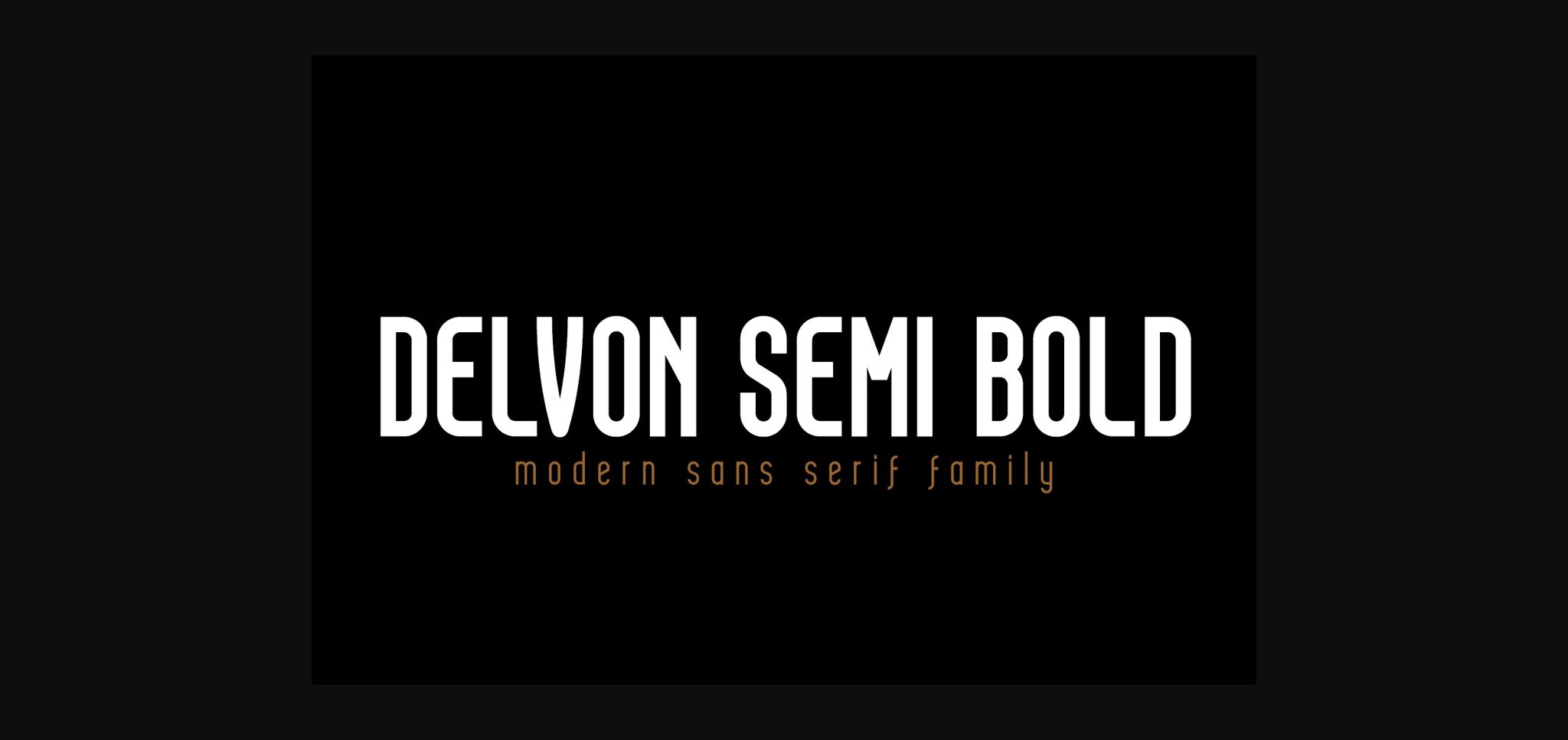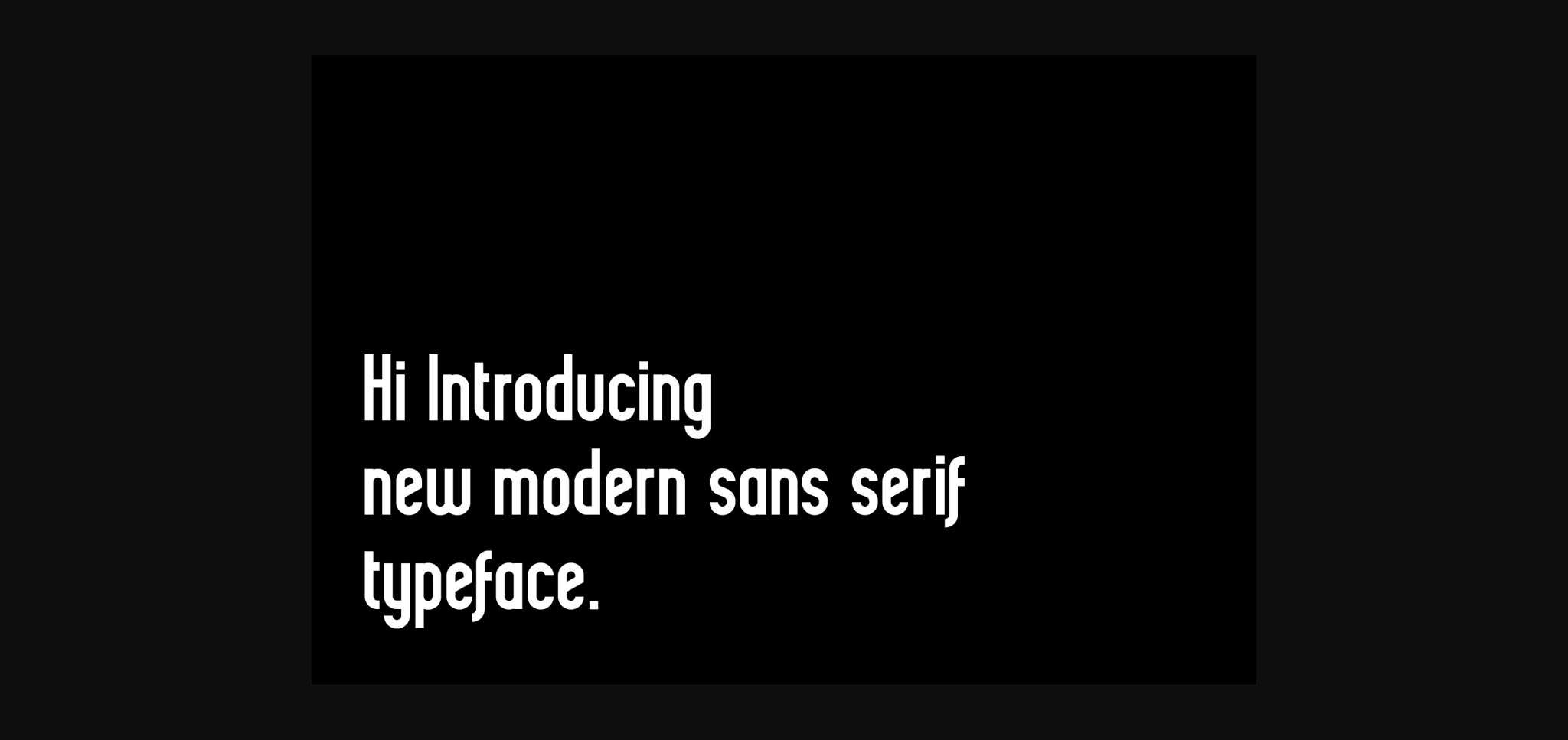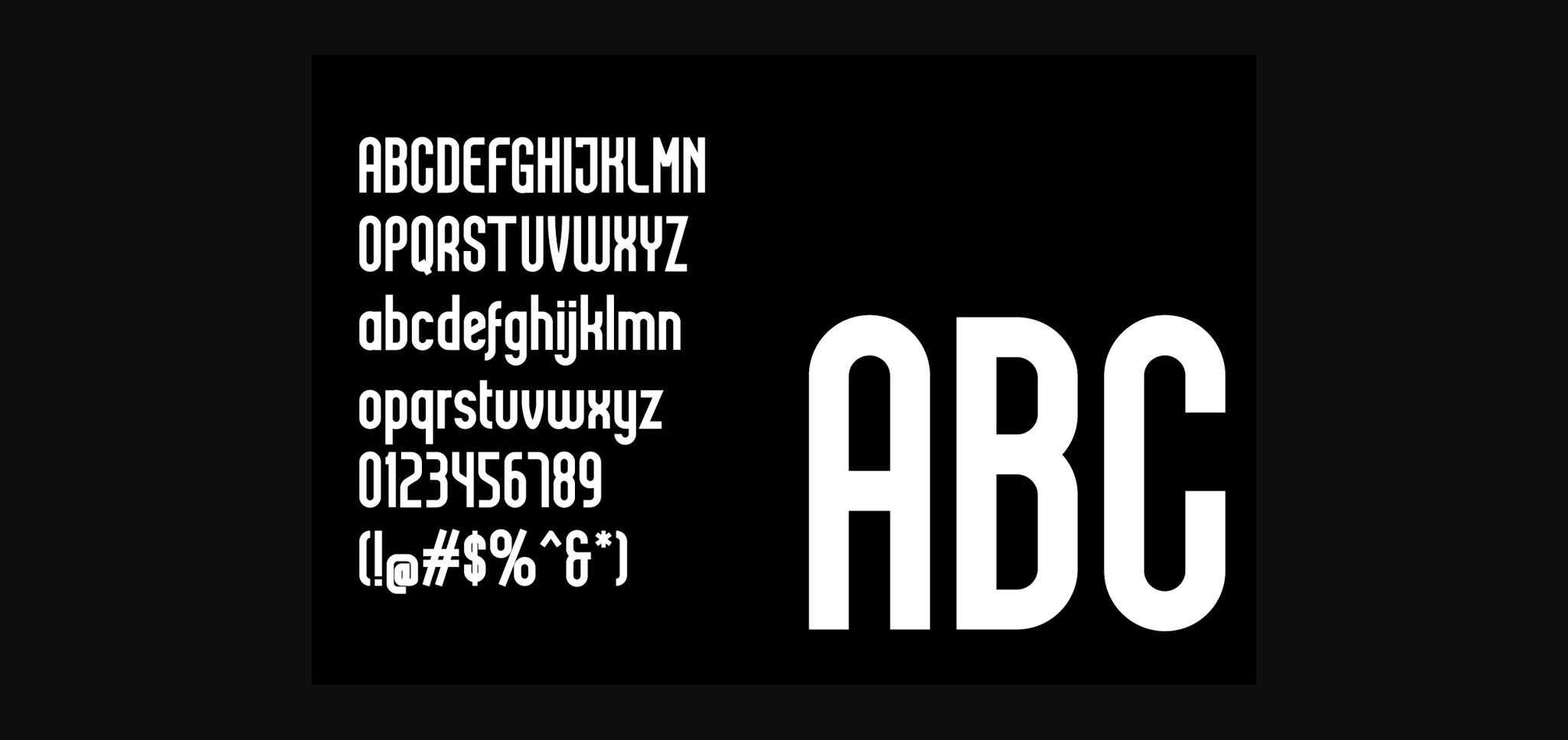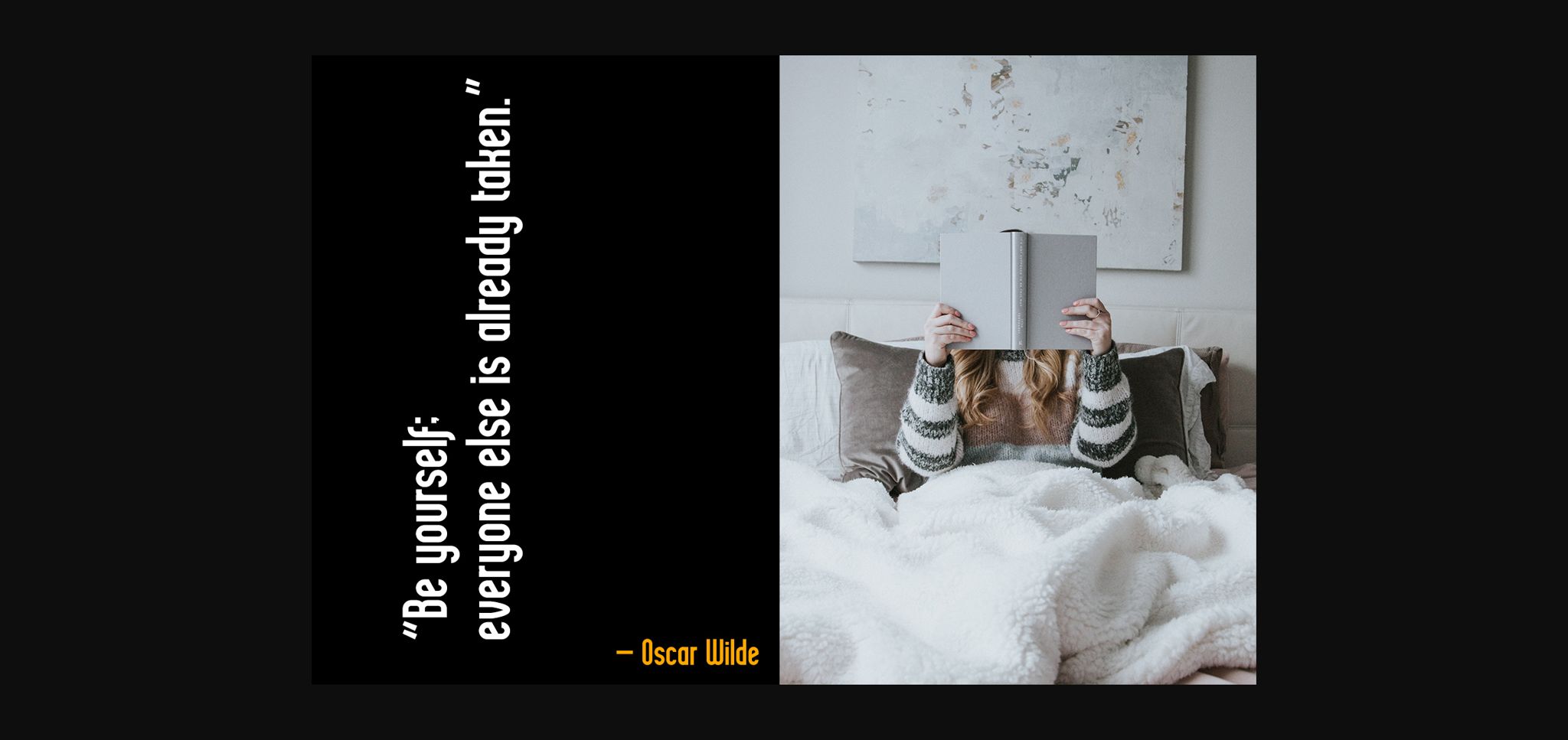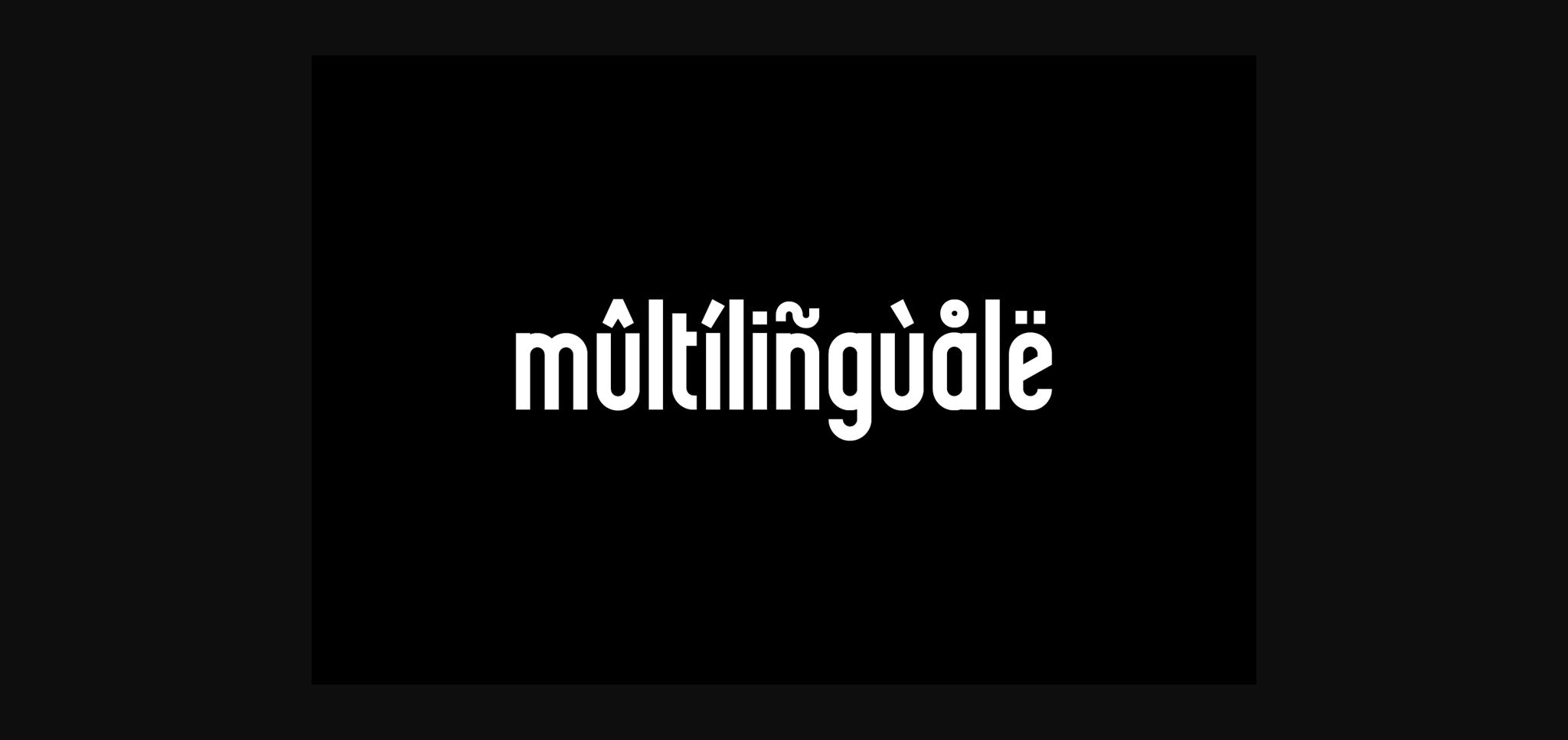
HomeSans Serif FontsDelvon Semi Bold Font Sans Serif Fonts Delvon Semi Bold Font FacebookXPinterestWhatsApp 1 of 7 ... Delvon Semi Bold Font Poster 2... Delvon Semi Bold Font Poster 3... Delvon Semi Bold Font Poster 4... Delvon Semi Bold Font Poster 5... Delvon Semi Bold Font Poster 6... Delvon Semi Bold Font Poster 7... About Delvon Semi Bold Font Delvon Semi Bold is a sweet and neat lettered sans serif font. It can easily be matched to an incredibly large set of projects, so add it to your creative ideas and notice how it makes them stand out! DOWNLOAD NOW People also explored England Signature Font Tweedledee Cat Love Font Airy Font Morph Nature Font Zaida Autumn Font Blind Matte Script Font Claresta Font Komic Kook Font 346 0 TagsDelvon Semi Bold Font Previous articleApollo FontNext articleEquilibrium Font LEAVE A REPLY Cancel reply Comment: Please enter your comment! Name:* Please enter your name here Email:* You have entered an incorrect email address! Please enter your email address here Website: Save my name, email, and website in this browser for the next time I comment. Personal Use Free Boldist Personal Use Free Read more about this font Unsteady Overseer Personal Use Free Read more about this font Super Discount Personal Use Free Read more about this font Baby Mollusca Personal Use Free Read more about this font BLOG Free vs Paid Fonts: Why Investing in Premium Fonts Is Worth It Free vs Paid Fonts: Why Premium Fonts Are Worth It in 2025 The debate of free vs paid fonts continues in the design world. While... How to Cut Any Font on Cricut: Convert a Font to SVG (Free) Exploring Font Trends Fonts That Capture the Spirit of New York City